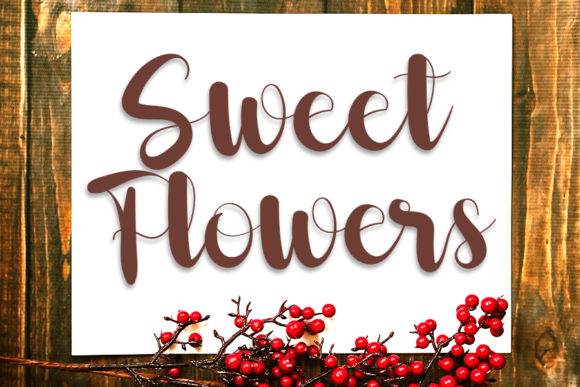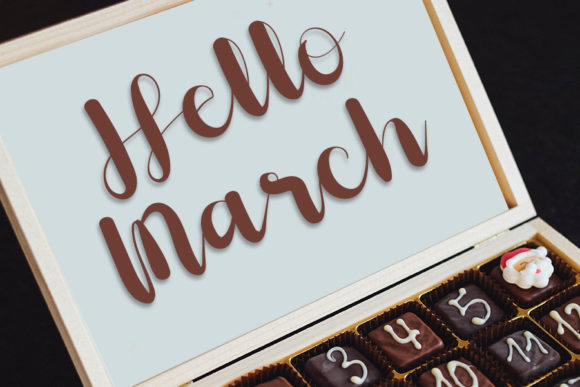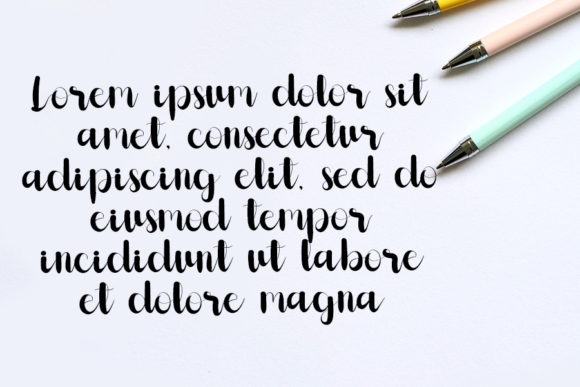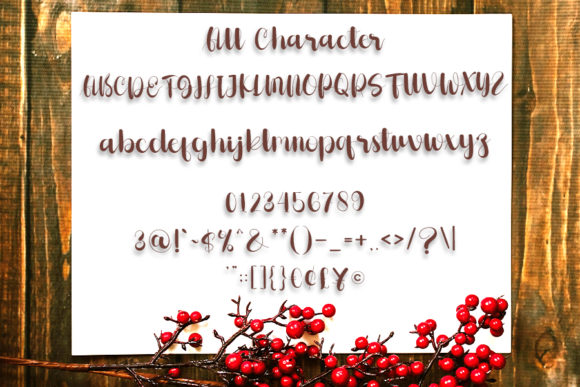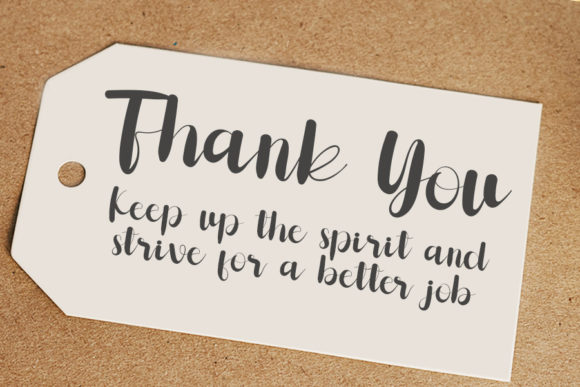
Introducing Chocolate Font: The Sweetest Addition to Your Design Toolbox
Are you a designer or crafter looking for a font that can add a touch of elegance and whimsy to your creations? Look no further than Chocolate Font, a lovely and timeless handwritten font that’s perfect for creating eye-catching logos, branding, and quotes.
The Unique Charm of Chocolate Font
What sets Chocolate Font apart from other fonts is its unique and beautiful touch. Every letter has been carefully crafted to give your designs a personal and handmade feel that’s sure to capture the attention of your audience. Whether you’re creating a logo, a social media graphic, or a quote, Chocolate Font is the perfect choice for adding a touch of sophistication and style.
Why Choose Chocolate Font?
So why choose Chocolate Font over other fonts? Here are just a few reasons why designers and crafters love working with this beautiful font:
- Timeless appeal: Chocolate Font has a classic, timeless quality that never goes out of style. Whether you’re creating a modern design or a vintage-inspired look, this font is sure to fit right in.
- Unique character: Every letter in Chocolate Font has a unique and beautiful touch that will make your designs stand out from the crowd.
- Ease of use: Chocolate Font is easy to read and use, making it perfect for creating a wide range of designs, from logos and branding to quotes and social media graphics.
- Versatility: Chocolate Font can be used for a wide range of design projects, from elegant wedding invitations to playful kids’ party decorations.
How to Use Chocolate Font in Your Designs
Now that you know why Chocolate Font is a great choice for your designs, let’s talk about how to use it. Here are a few tips for getting the most out of this beautiful font:
- Pair it with bold colors: Chocolate Font looks amazing paired with bold, bright colors. Try pairing it with a deep red or a bright coral for a look that’s sure to turn heads.
- Use it for headings and titles: Chocolate Font is perfect for creating eye-catching headings and titles. Try using it to add a touch of elegance to your blog posts, social media graphics, and marketing materials.
- Experiment with different sizes: Chocolate Font looks great in a wide range of sizes, from large headings to smaller body text. Experiment with different sizes to find the one that works best for your design.
Chocolate Font in Action
But don’t just take our word for it – let’s take a look at some examples of Chocolate Font in action. Here are a few ways that designers and crafters have used this beautiful font in their work:
- Logos and branding: Chocolate Font is a popular choice for logos and branding, thanks to its unique and memorable character. Try using it to create a custom logo for your business or brand.
- Wedding invitations: Chocolate Font is a popular choice for wedding invitations, thanks to its elegant and sophisticated feel. Try using it to create a custom wedding invitation that’s sure to impress your guests.
- Social media graphics: Chocolate Font is a great choice for social media graphics, thanks to its bold and eye-catching character. Try using it to create custom social media graphics that will help your brand stand out from the crowd.
In conclusion, Chocolate Font is a beautiful and versatile font that’s perfect for designers and crafters who want to add a touch of elegance and whimsy to their creations. With its unique and beautiful touch, timeless appeal, and ease of use, Chocolate Font is the perfect choice for a wide range of design projects. So why wait – download Chocolate Font today and start creating your own stunning designs!